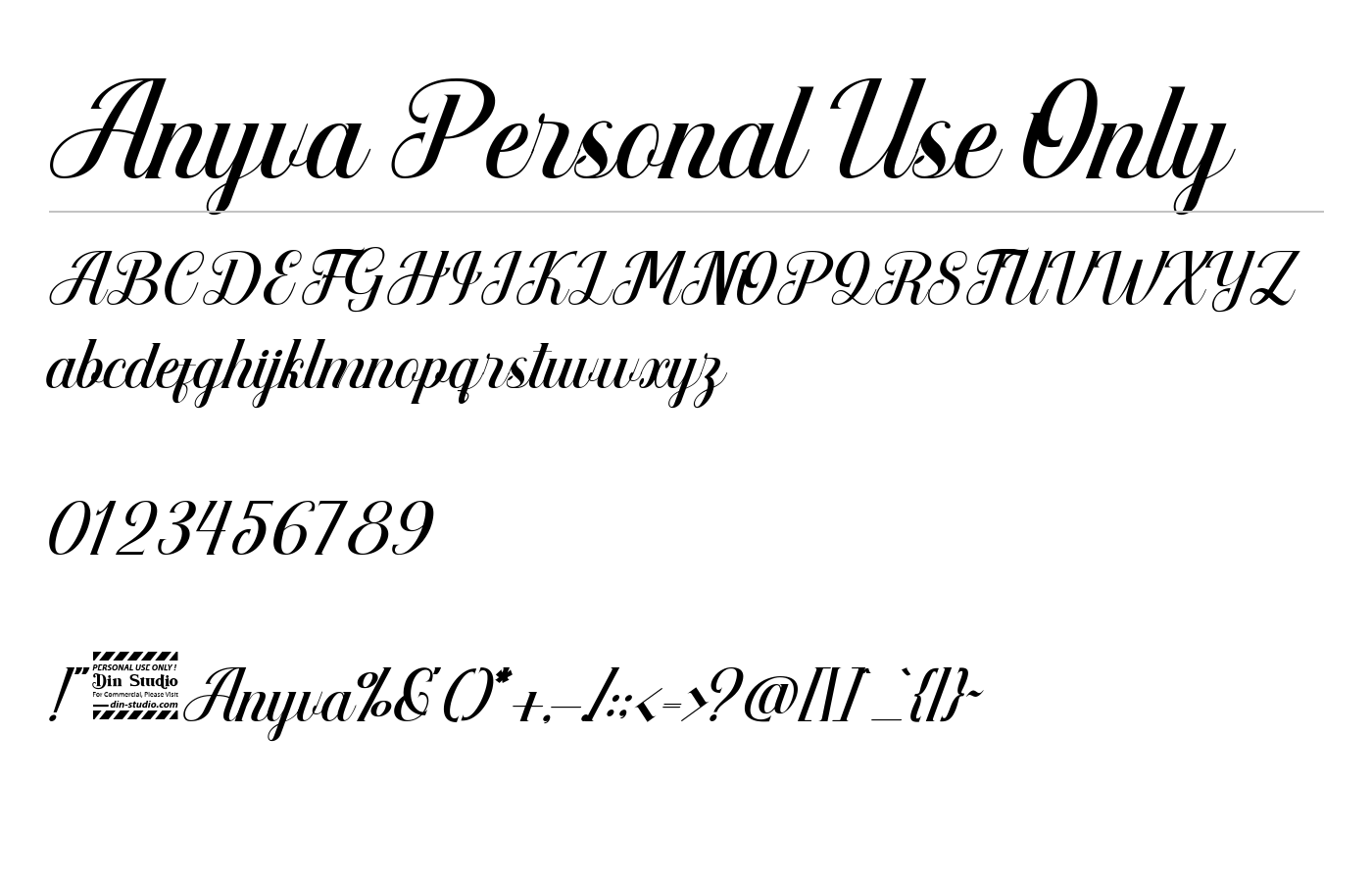
Anyva Personal Use Only is an elegant script font featuring slender, flowing letterforms with a refined calligraphic style that conveys sophistication and grace. Its medium contrast strokes and smooth curves make it ideal for stylish branding, invitations, and editorial headlines where a touch of classic charm and femininity is desired. This font works best in decorative uses rather than body text, adding a luxurious and timeless feel to any project.